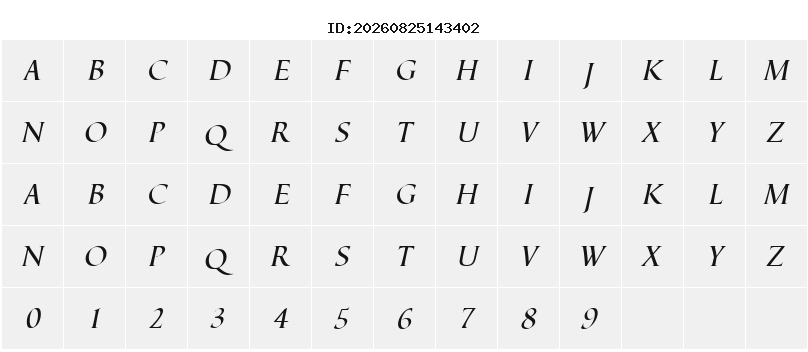
• Font Name: SPQR
• Full Font Name: SPQR Italic
About SPQR.ttf
SPQR.ttf is a modern, elegant sans-serif font designed for ultimate readability and visual harmony. Perfect for branding, headlines, web design, and print materials.